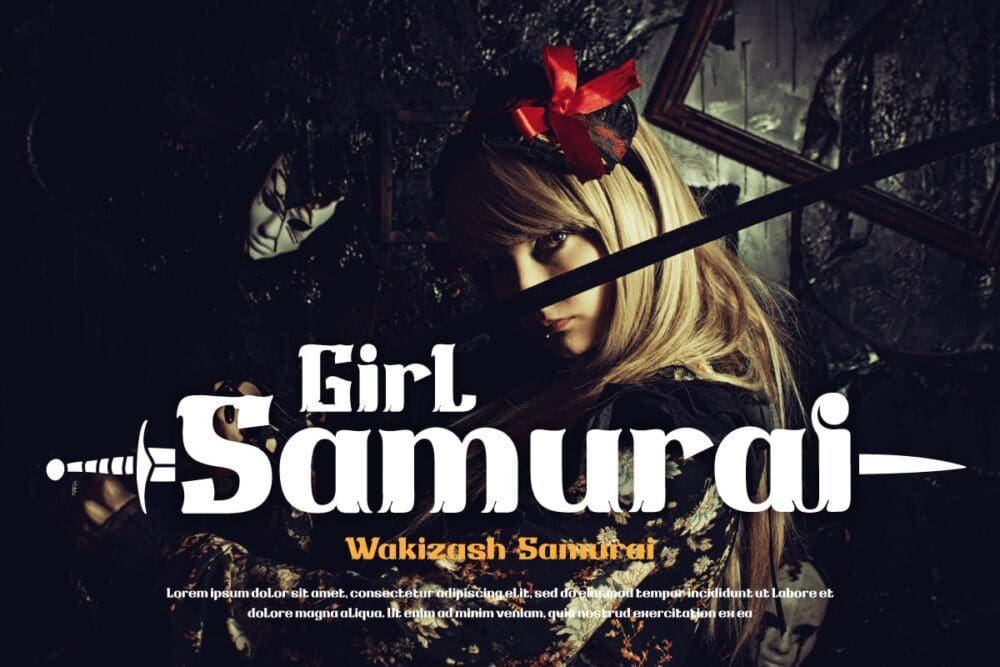
Saikend Font
Sakend display font that describes the strength and courage of a superhero. Whether you are working on film projects, games, or designs with strong and action-packed themes, Saikend is the perfect choice for you. With a style inspired by superheroes, Saikend will make your designs the center of attention. The courage and strength that radiate from each letter will bring your project to life, giving it a bold and unforgettable look.